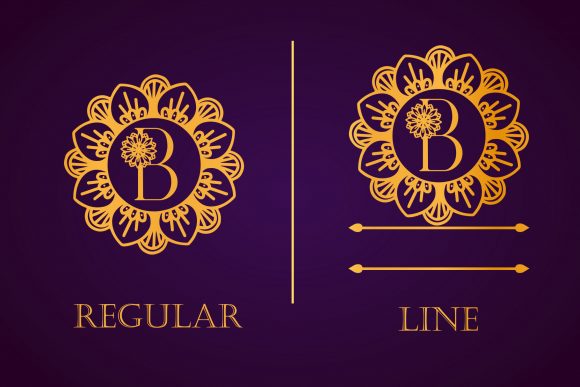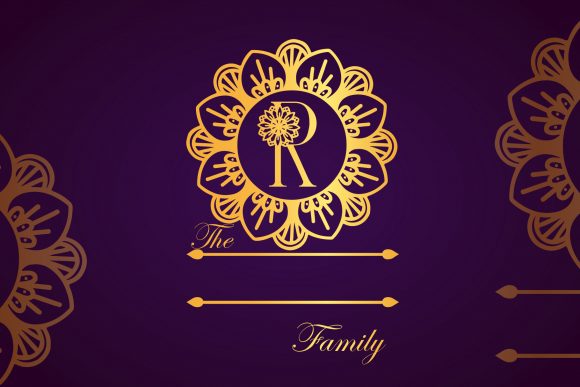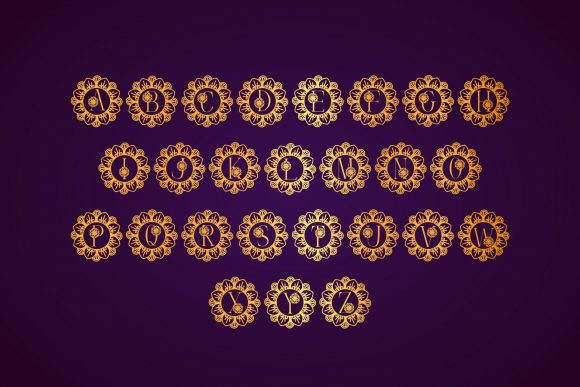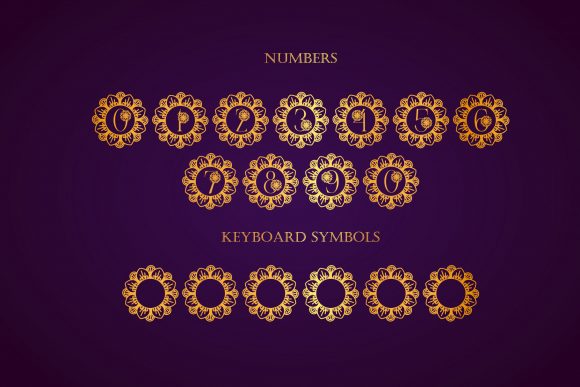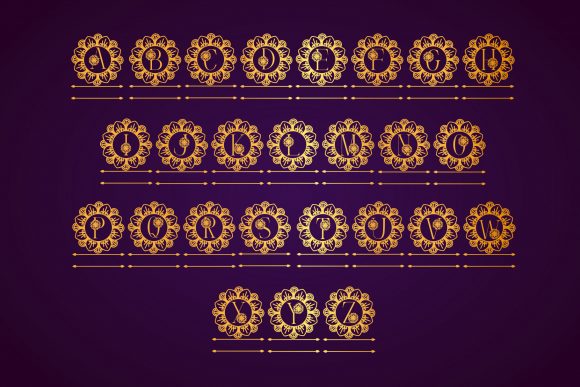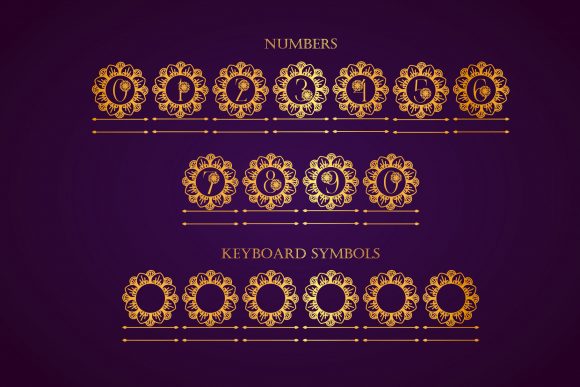
The Sweet Charm of Flower Mandala Monogram Font
Have you ever been in the middle of a design project, and suddenly, you’re stuck on finding the perfect font? I recall a particularly frustrating experience while working on a wedding invitation design. My client wanted something elegant, yet playful, and I was determined to deliver. That’s when I stumbled upon the Flower Mandala Monogram Font, and it instantly captured my heart. In this article, I’ll share my love for this beautiful font, its features, and provide a comprehensive guide on how to make the most of it.
A Personal Review: What I Love and What to Consider
- 💕 The Flower Mandala Monogram Font boasts a unique, hand-crafted design featuring lovely flower ornaments that add a touch of elegance and whimsy to any project.
- ✅ Its authentic feel makes it perfect for creating wedding invitations, stationery art, social media posts, and greeting cards that require a personal touch.
- 🌼 The font’s versatility allows it to be used in various design contexts, from digital to print.
- 👍 It’s incredibly easy to use, even for those who are new to working with decorative fonts.
- ⚠️ While the font is generally easy to use, some users might find the extensive range of glyphs and stylistic alternates a bit overwhelming at first.
- ⚠️ As with many decorative fonts, it might not be suitable for body text or long-form content due to its ornamental nature.
The Designer Inspiration Behind Flower Mandala Monogram Font
The Flower Mandala Monogram Font was inspired by the intricate designs found in traditional Indian and Pakistani art. The creator aimed to capture the essence of these beautiful patterns and translate them into a modern, decorative font. The result is a unique and captivating typeface that adds a touch of elegance and whimsy to any design.
Q: What type of projects is Flower Mandala Monogram Font best suited for?
A: Flower Mandala Monogram Font is perfect for creating wedding invitations, stationery art, social media posts, and greeting cards that require a personal touch.
Q: Is Flower Mandala Monogram Font suitable for body text?
A: Due to its decorative nature, Flower Mandala Monogram Font is not recommended for body text or long-form content. It’s best used for headings, titles, or short phrases.